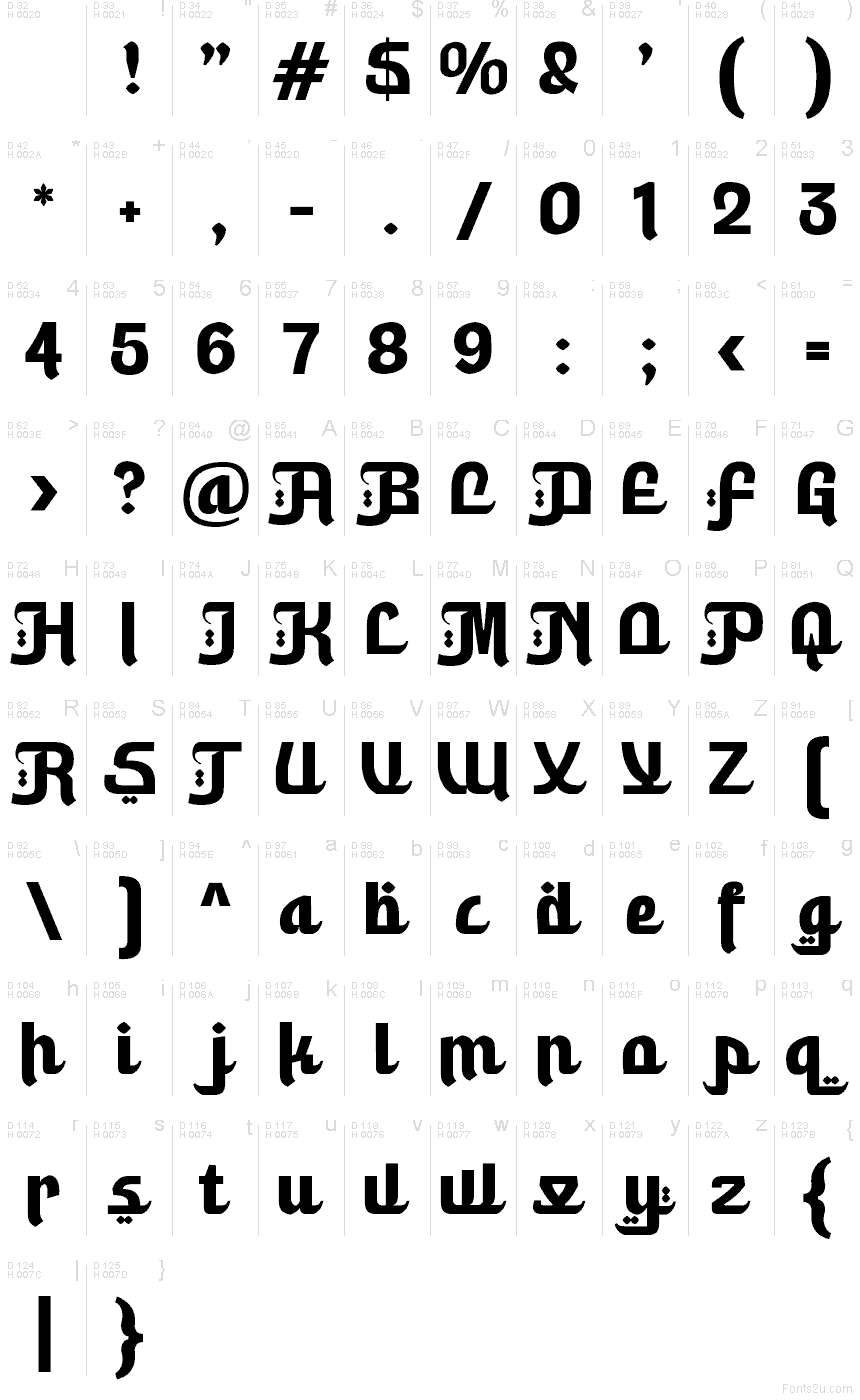
Rahila Arabic font by Musthafa Kamal Emje - Afkari Studio is a free faux Arabic decorative typeface. Bold, inky strokes echo the sweep of traditional calligraphy, while the Latin structure keeps everything readable at a glance. The chunky curves and teardrop-like notches give each word a rich, ornamental feel, as if it’s been hand-painted on a café sign or cut into dark wood.
Rahila Arabic
Rahila Arabic by Afkari Studio